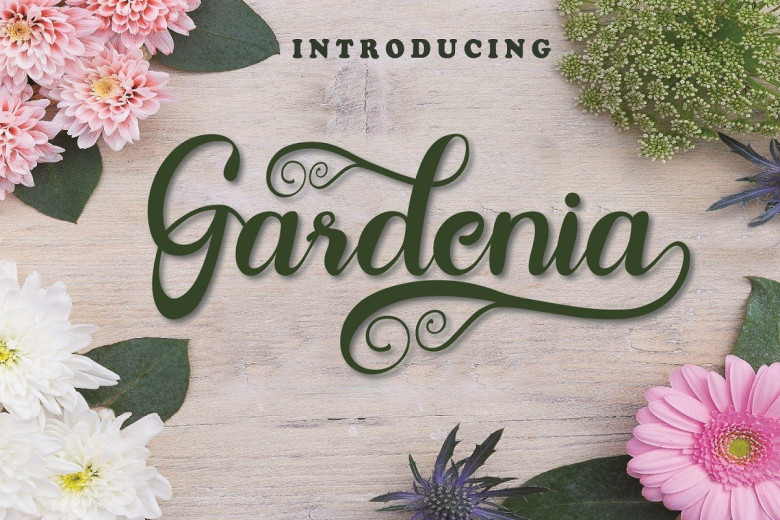
Gardenia Lovely Calligraphy Script Font
Introducing Gardenia Lovely Calligraphy Script Font made from the heart and very carefully, specifically designed to be able to meet various kinds of needs, especially for logos, badges, packaging, brands, posters, t-shirts and others.